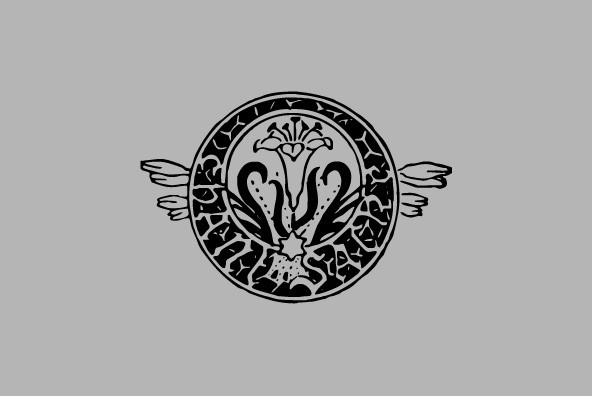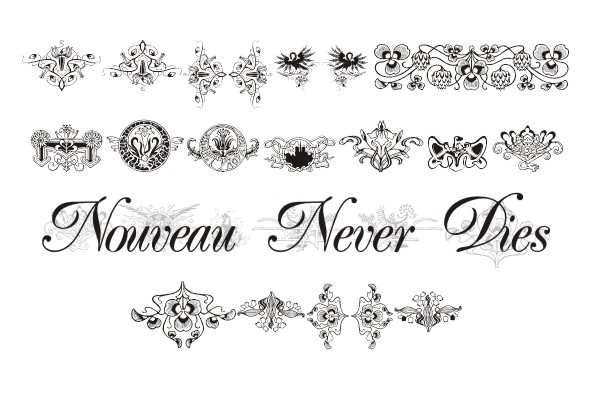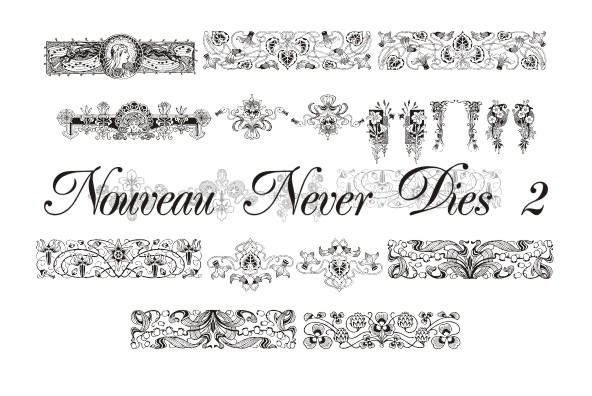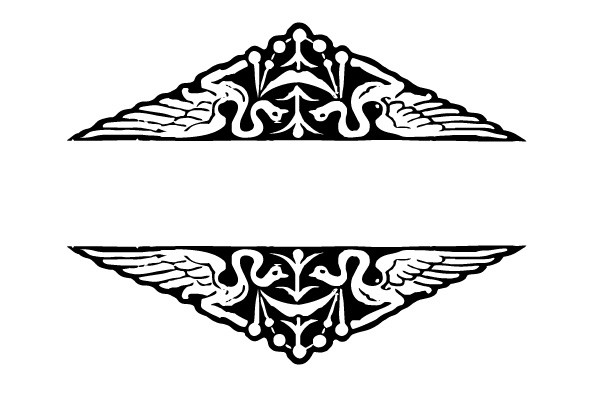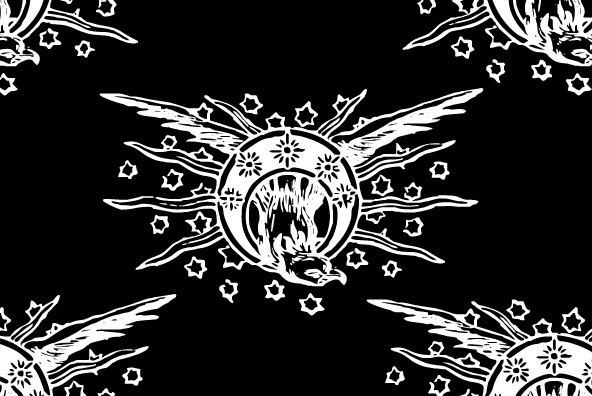
A dingbat/decorative display font featuring many different styles of flourishes and ornaments. Great for a vintage antique feel. Contains uppercase letter designs only, works best for display/decorative use only.